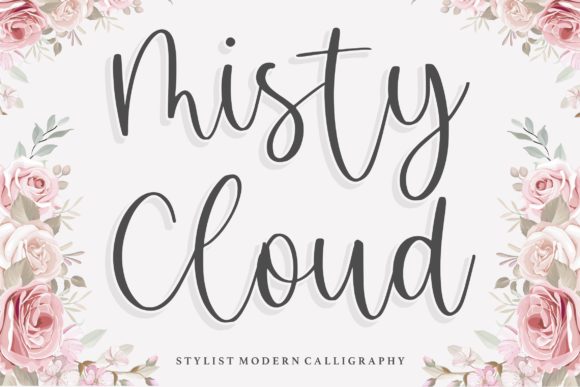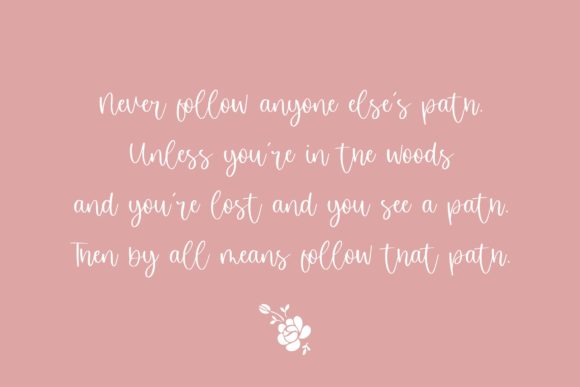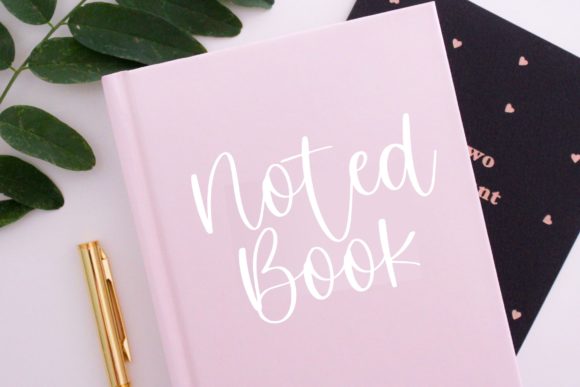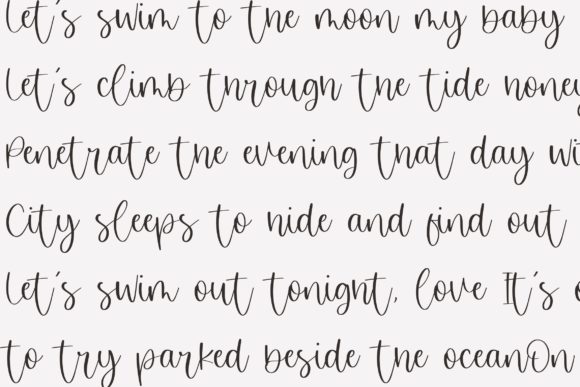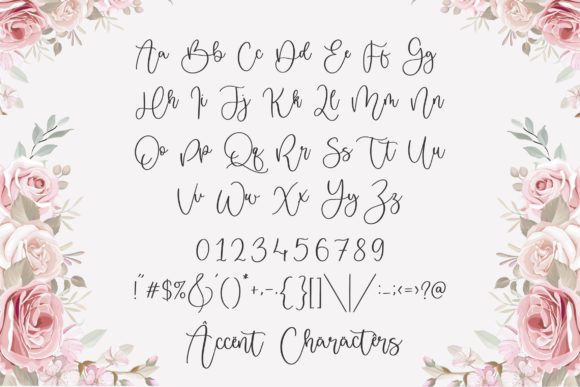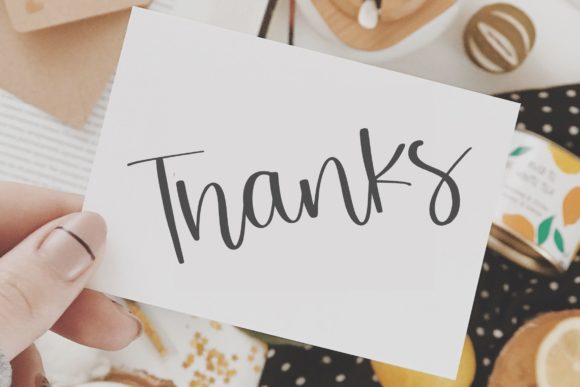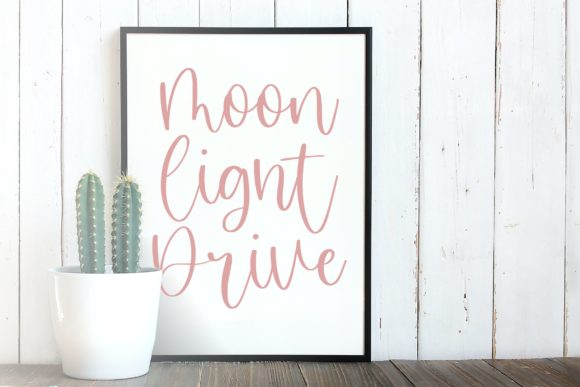
Misty Cloud Font
About Misty Cloud Font
Misty Cloud is a sweet and friendly handwritten font. Its natural and unique style makes it incredibly fitting to a large pool of designs. The only limit is your imagination!